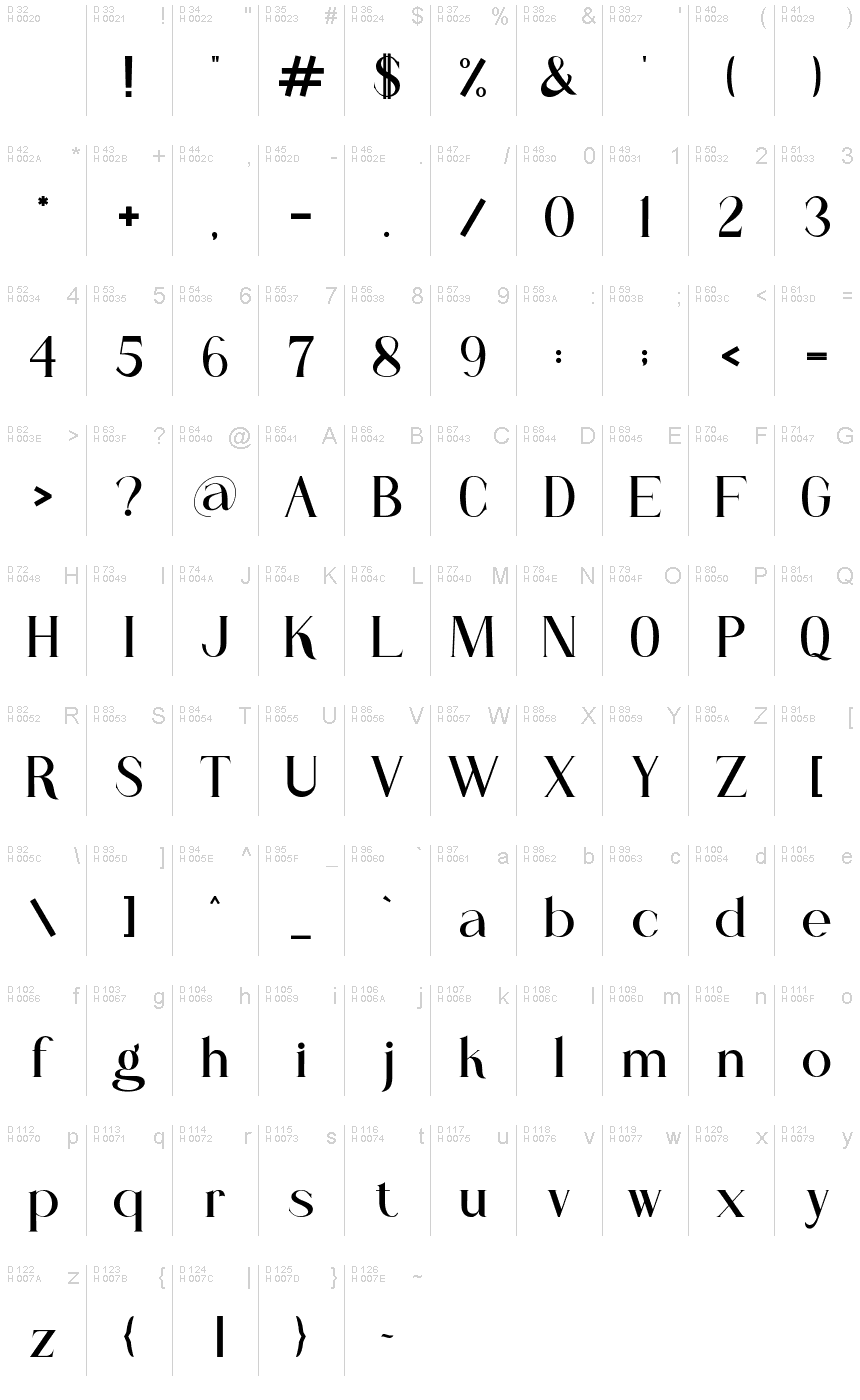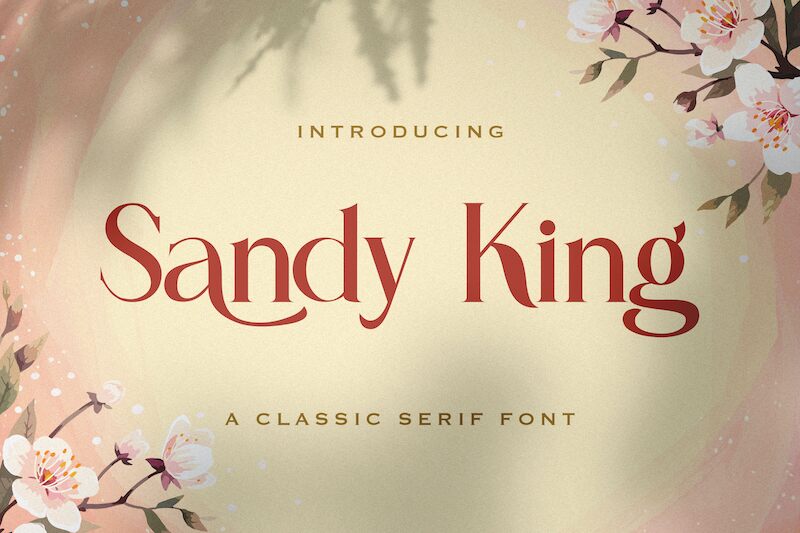
Sandy King
Sandy King, a classic serif font designed by Virgiawan Listanto, is perfect for adding a timeless elegance to any project. Its graceful curves and traditional style make it ideal for creating stylish wedding invitations, classic book covers, or elegant logos.